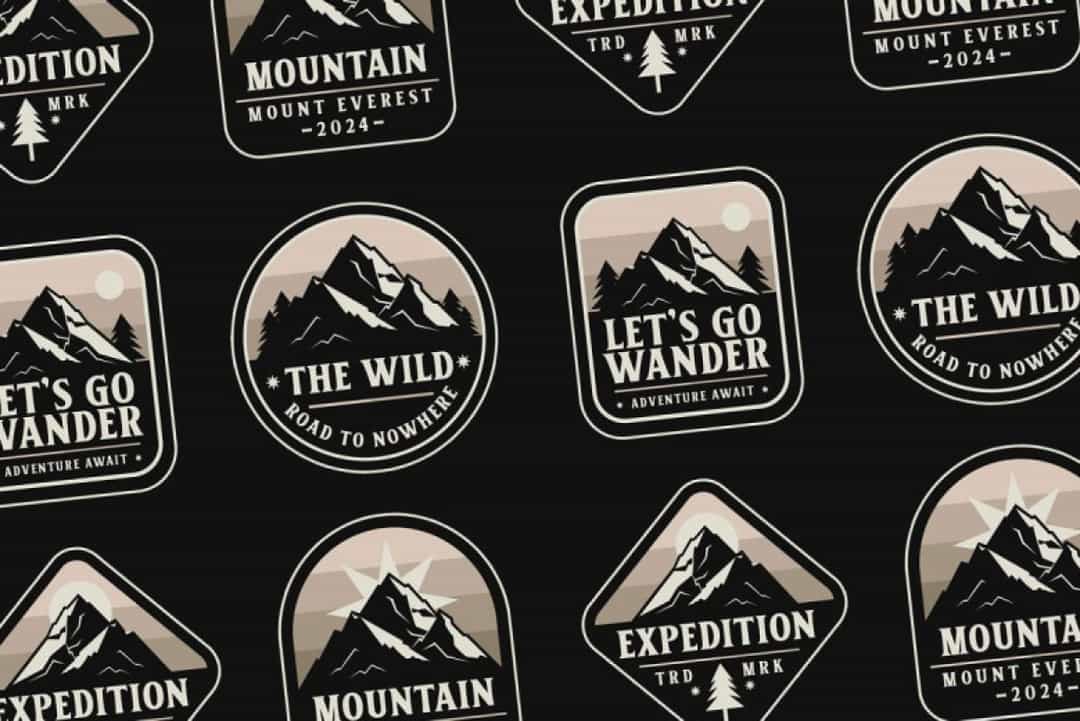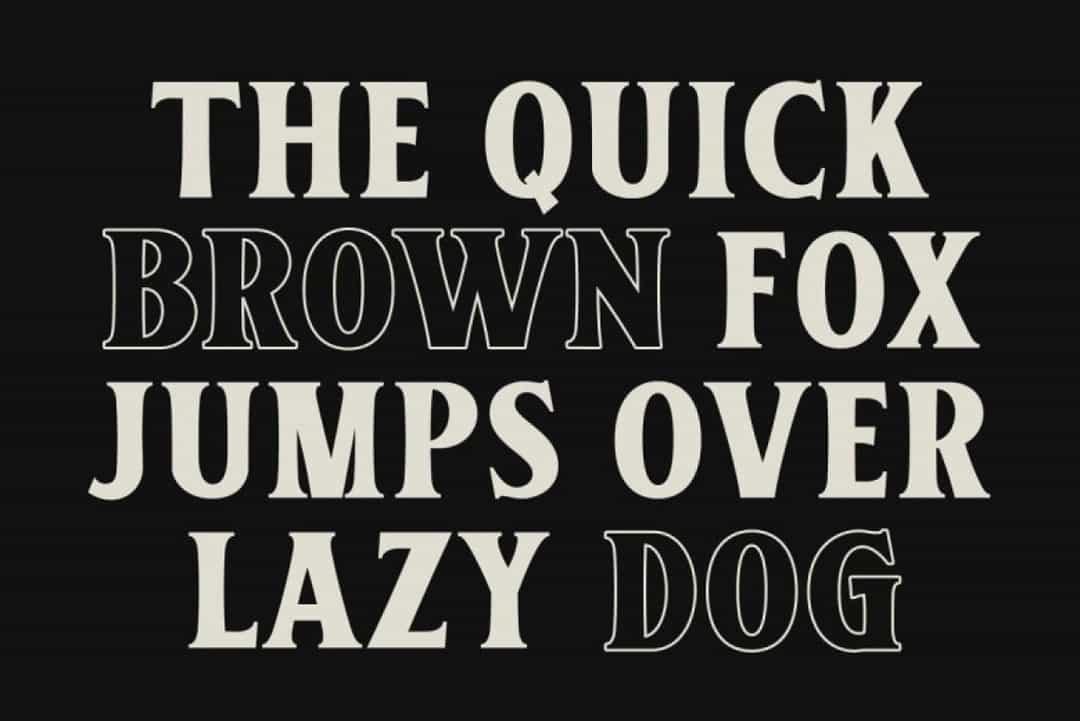
Helvers is a Bold and Strong Serif font with college typographic influence. Perfect for making designs more inviting and exciting, Helvers boasts superior aesthetic quality making this font ideal for book covers, posters packing products, logotypes, and many other uses.